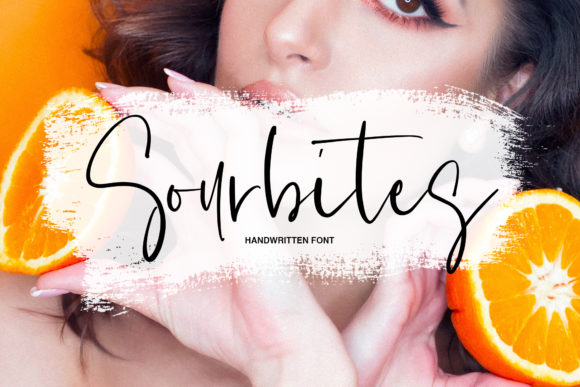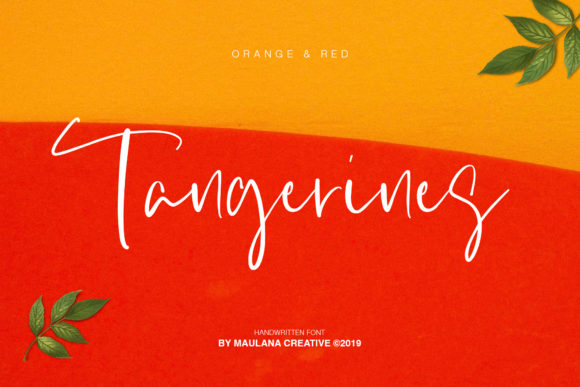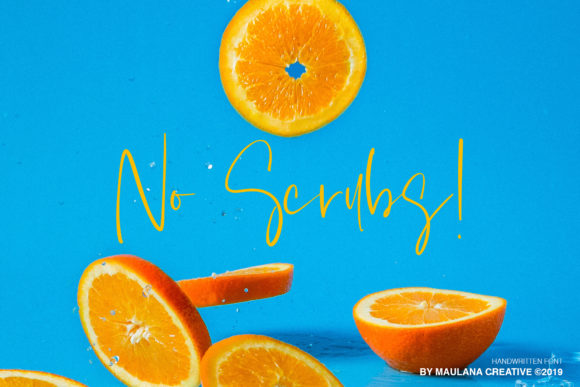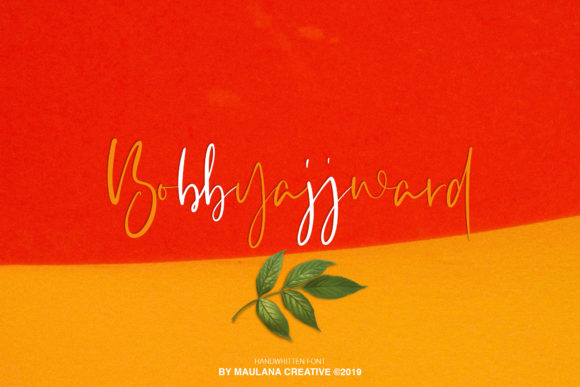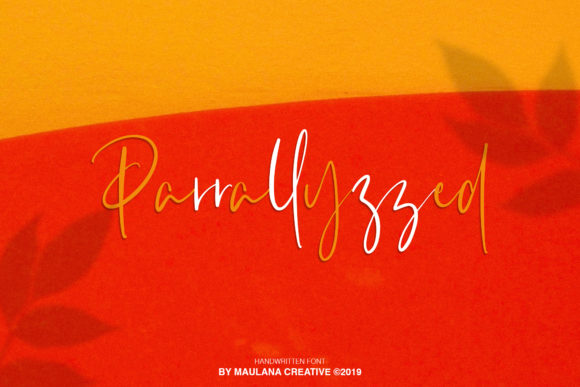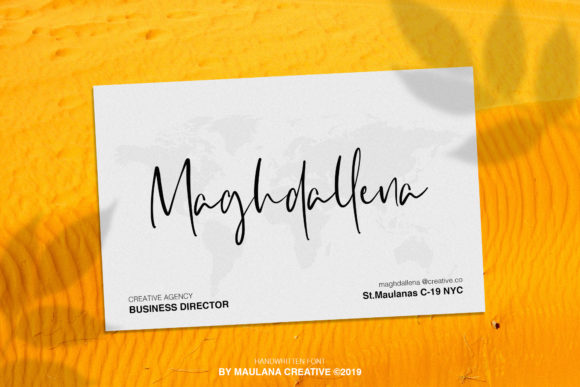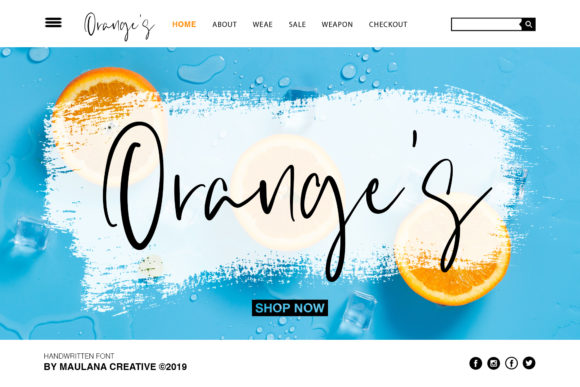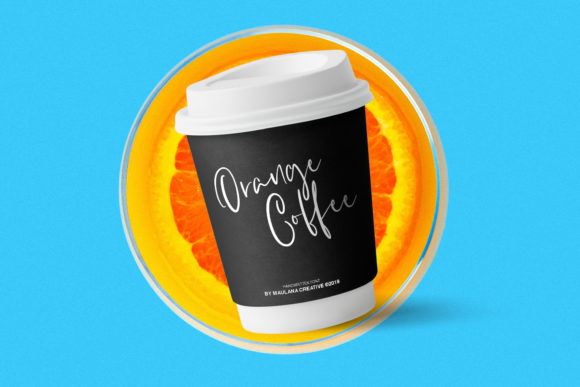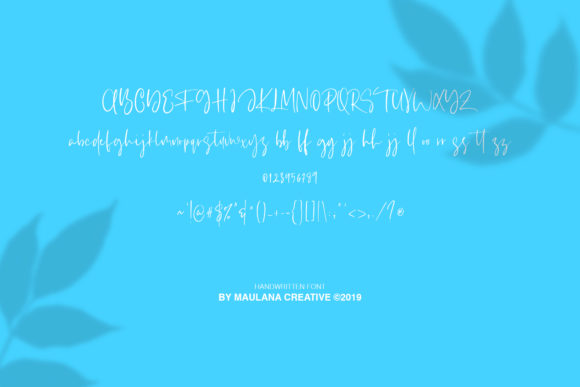
Sourbites Font
About Sourbites Font
Sourbites is your go-to font for lending any designs that handwritten, authentic vibe. Its lettering effortlessly combines elegance and charm, making it an absolute must-have!